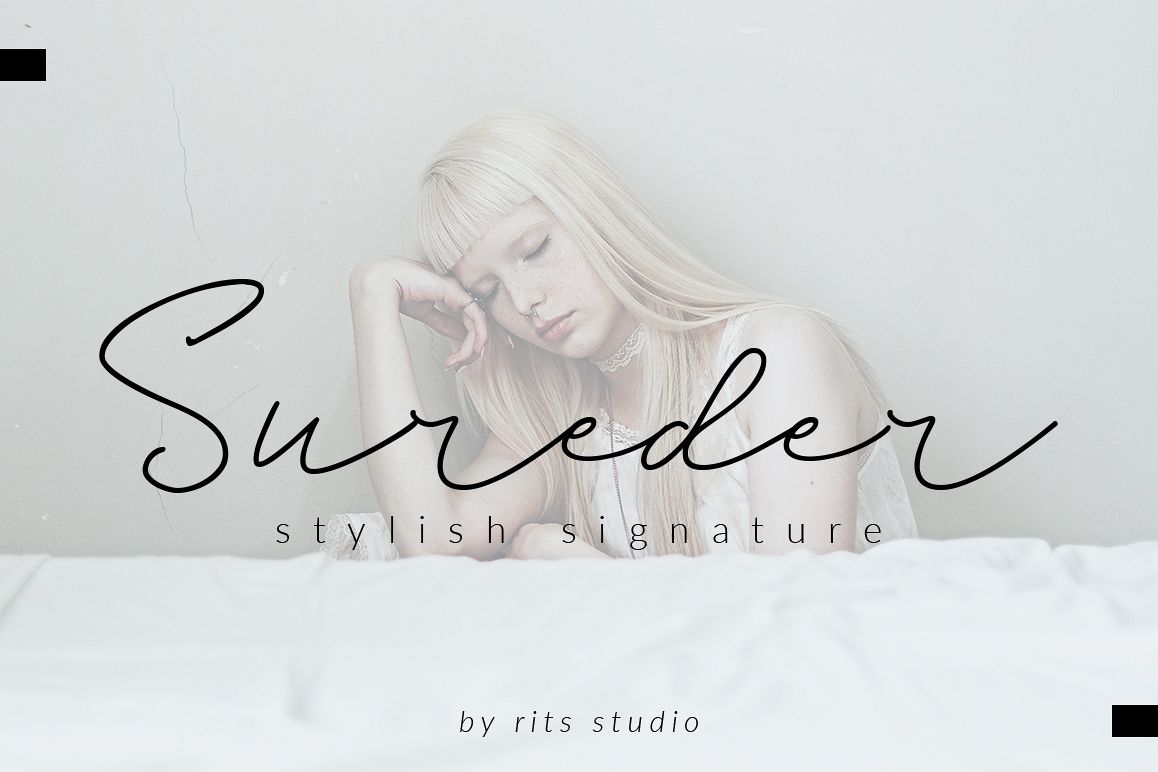
Sureder Stylish
Introducing, Sureder Stylish the newest signature handmade!
Sureder Stylish is a signature font that you can use to make a logo for branding, beautiful fashion design, suitable for wedding invitation, or handwritten quote. Also already PUA Encoded.
Beautiful font. Just missing a few characters (symbols)